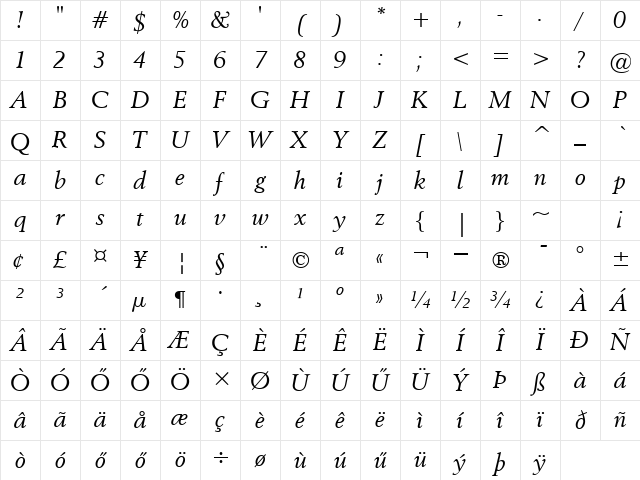
H_Revival 565 BT is a composed and adaptable typeface that performs quietly and consistently across a wide range of design contexts. The slanted form adds forward momentum and visual energy.
Pro Tip: Use H_Revival 565 BT for emphasis, pull quotes, and subheadings where its slanted energy can add rhythm to the layout.